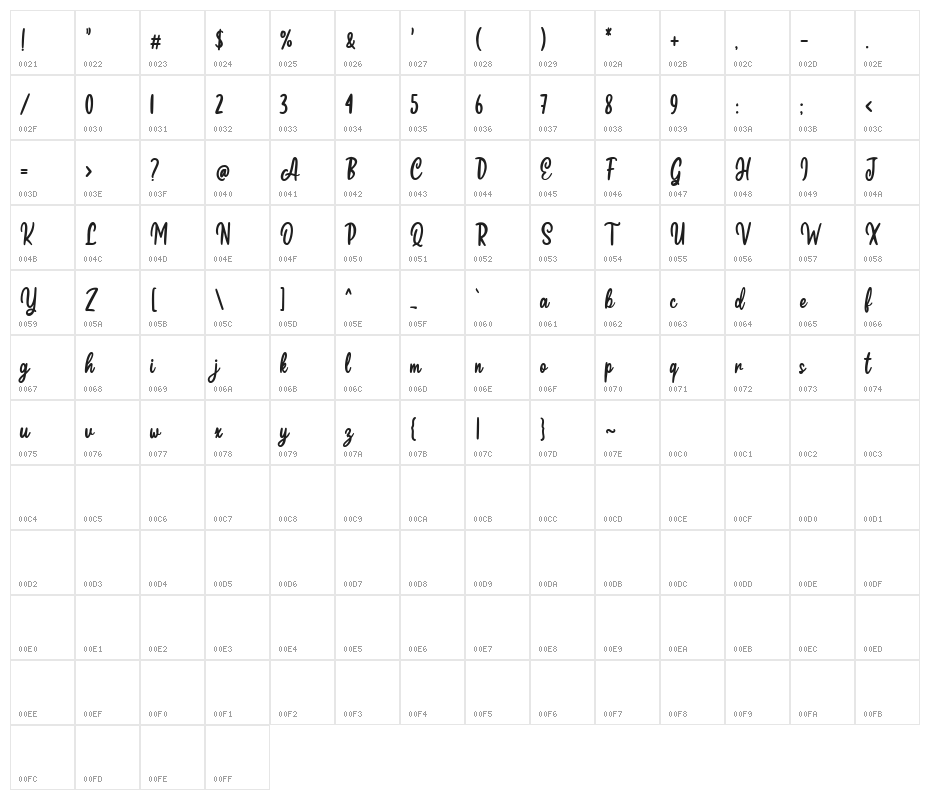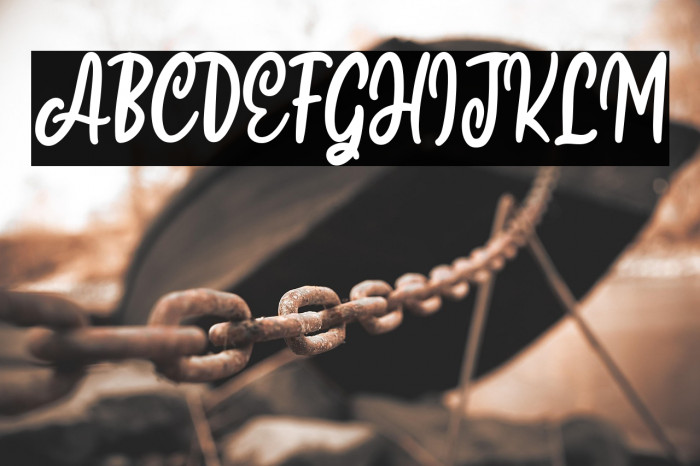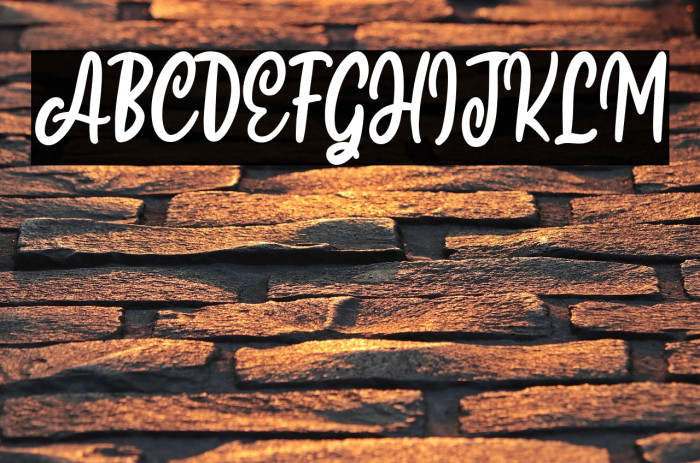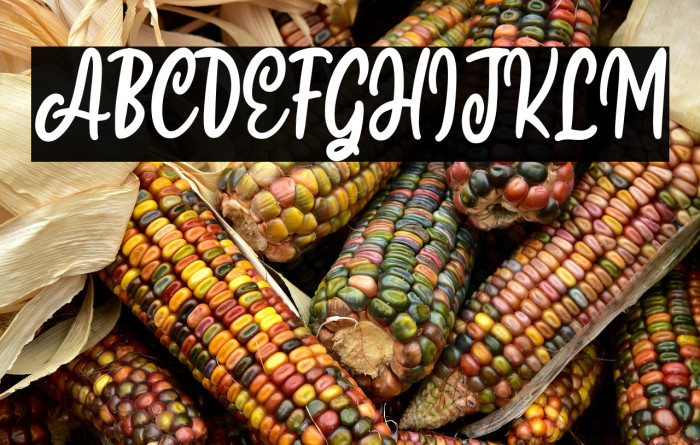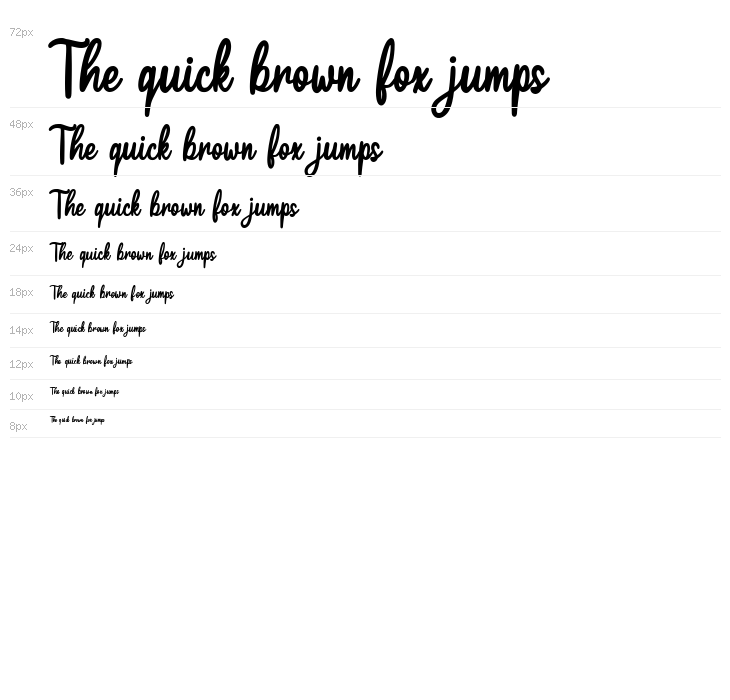
Chidera Font
Chidera Description
This font features a playful and energetic script style, characterized by its flowing, cursive letterforms. The uppercase letters are bold and dynamic, with a slight slant that adds a sense of movement. The lowercase letters maintain a consistent style, with smooth curves and loops that enhance readability. The numbers and special characters are designed to match the overall aesthetic, providing a cohesive look. This font's lively appearance makes it ideal for projects that require a touch of personality and flair.
| Proposed Projects | Ideal for greeting cards, invitations, logos, and branding materials that require a personal and lively touch. |